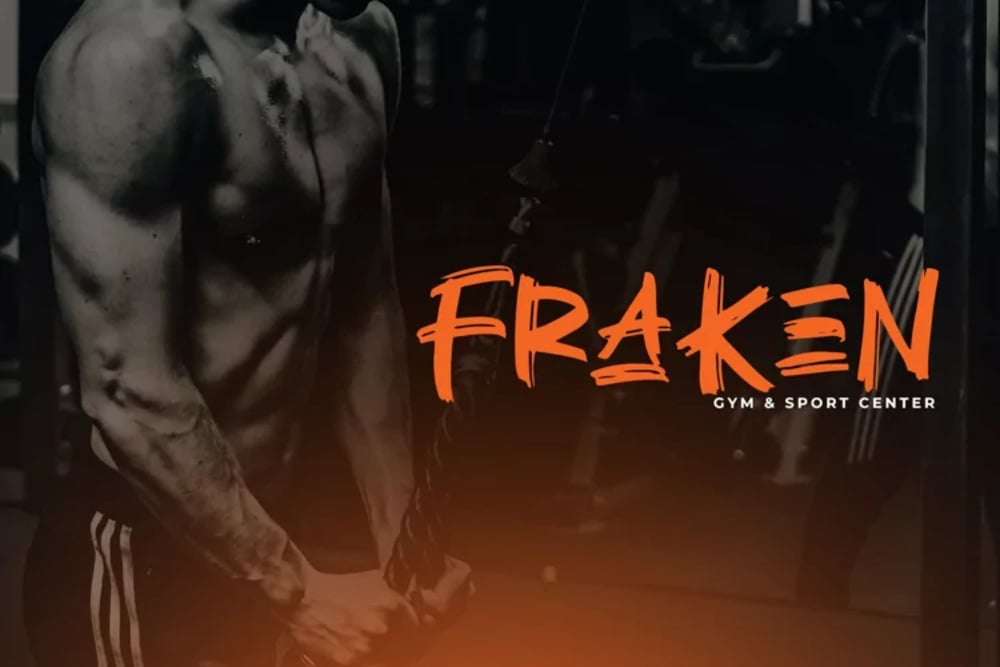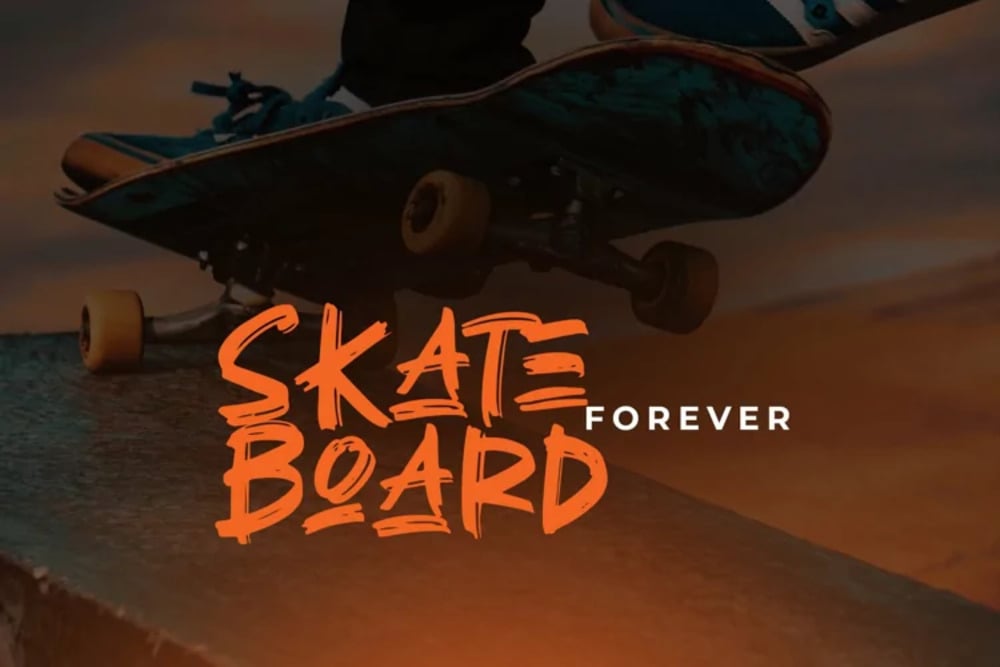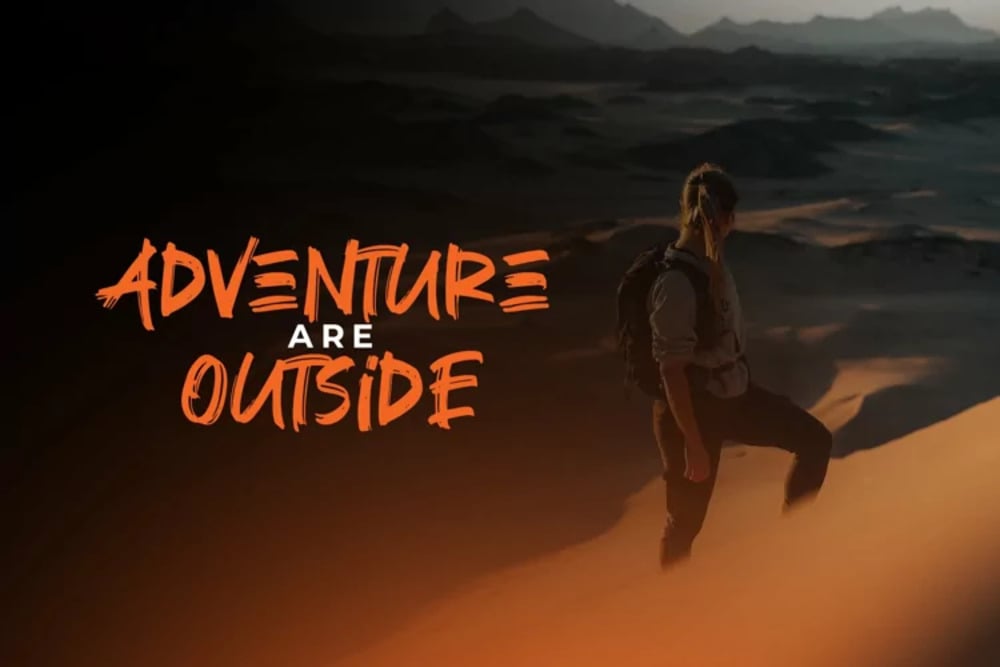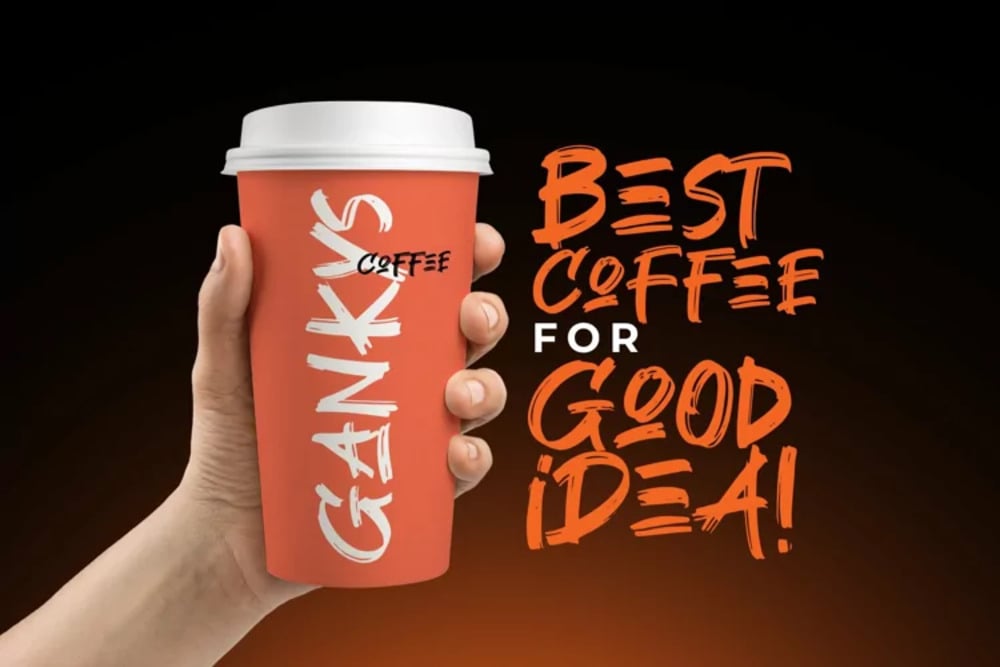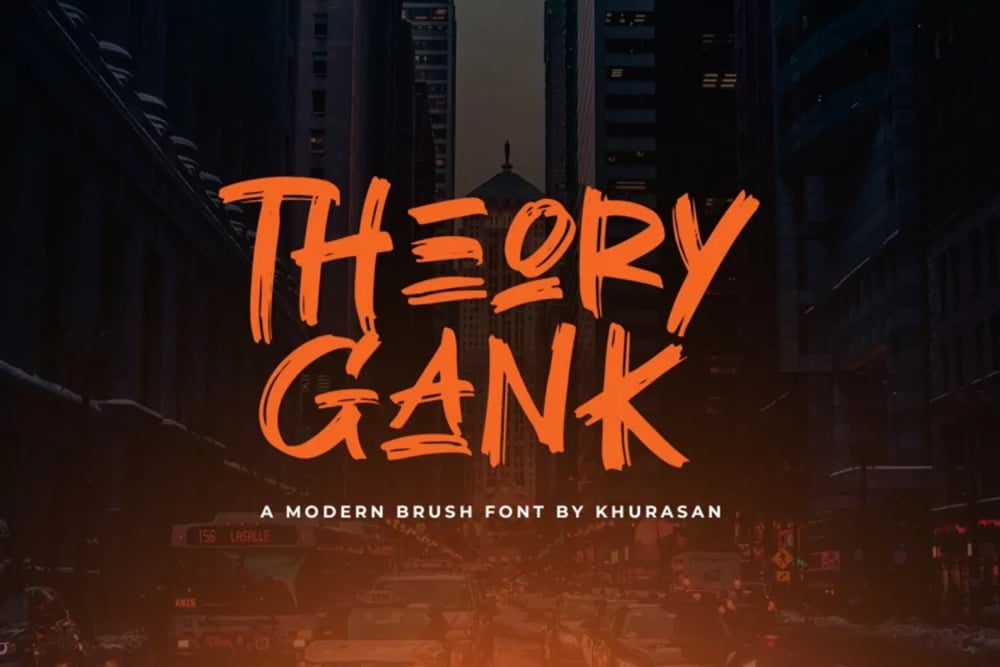
Theory Gank Font
Theory Gank Font is a bold and edgy typeface that blends modern aesthetics with rebellious flair. Featuring sharp angles and dynamic lines, it’s perfect for creating striking headlines, logos, and urban-inspired designs. The font exudes confidence and energy, making it a great choice for projects that demand attention and a contemporary, street-smart vibe. Let Theory Gank redefine your creative edge.